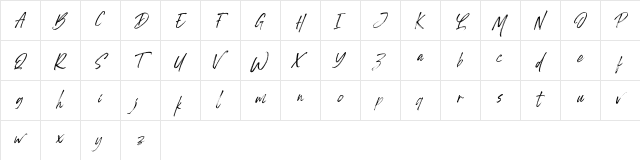
Monday Vacation Italic Script
Design Context for Monday Vacation Typeface
Monday Vacation brings a calligraphic fluidity to the page — its connecting strokes and expressive curves give it an unmistakably human quality.
Font Pairing: Combine Monday Vacation with a simple geometric sans for maximum contrast — the tension between flowing curves and clean structure is a classic typographic pairing.
Pro Tip: Use Monday Vacation for short runs of text — names, titles, or taglines. Extended body copy in script faces tires the eye quickly.